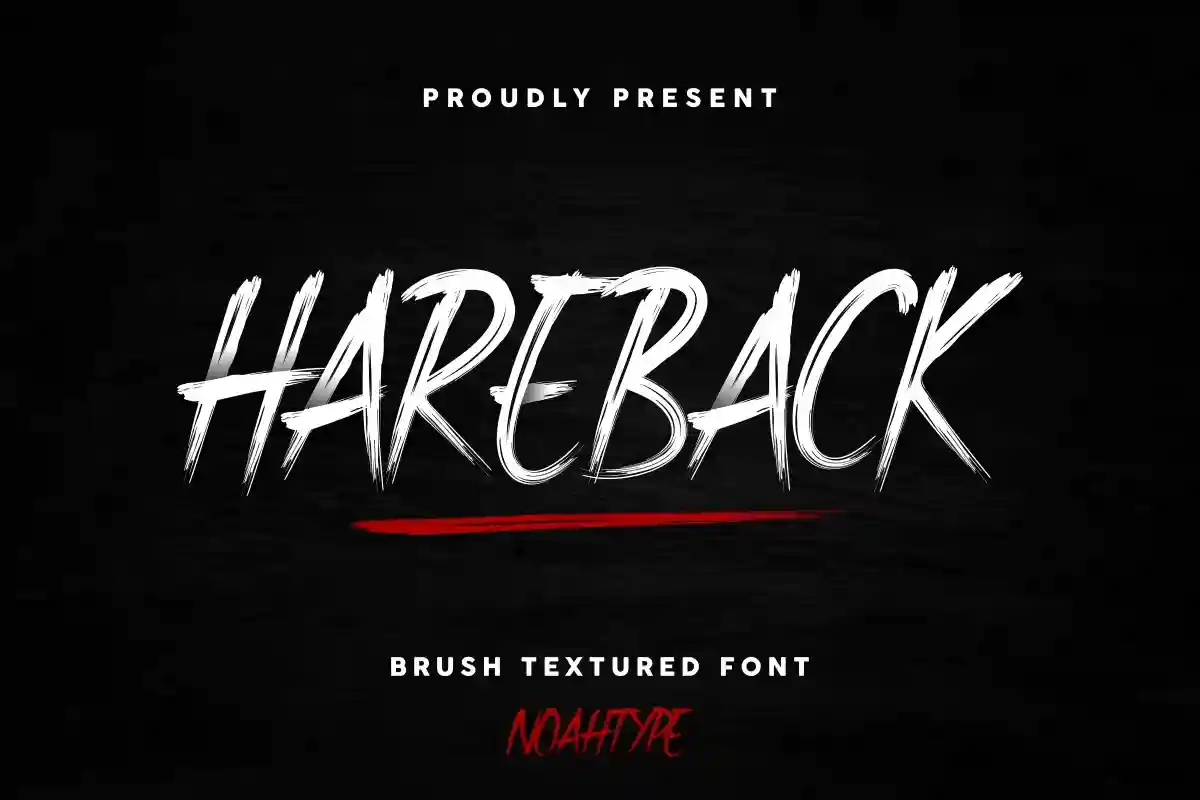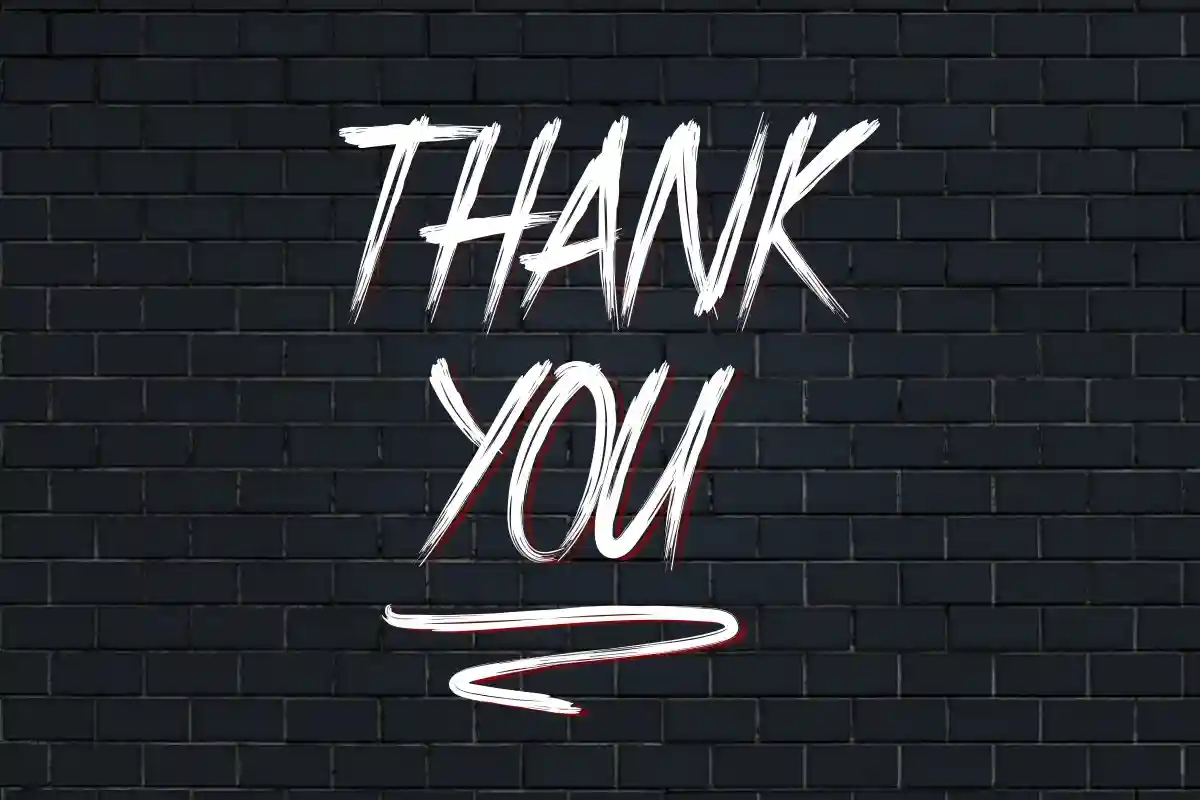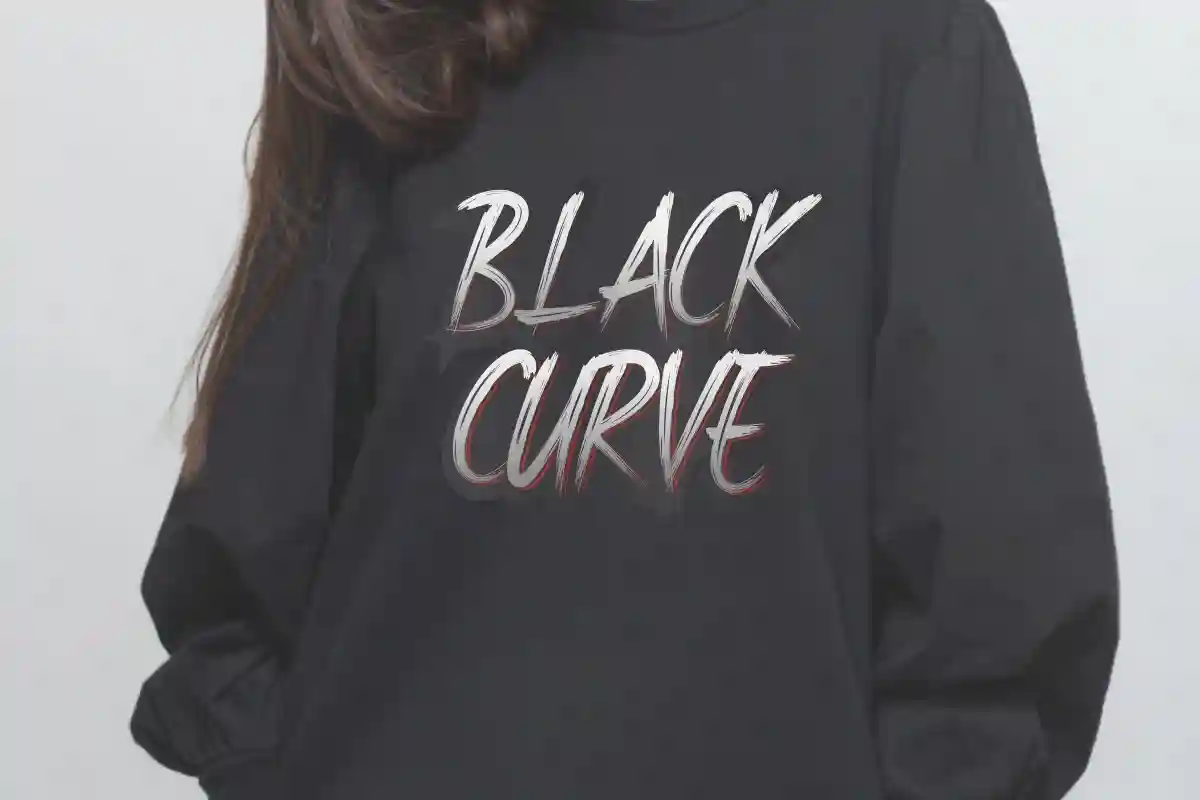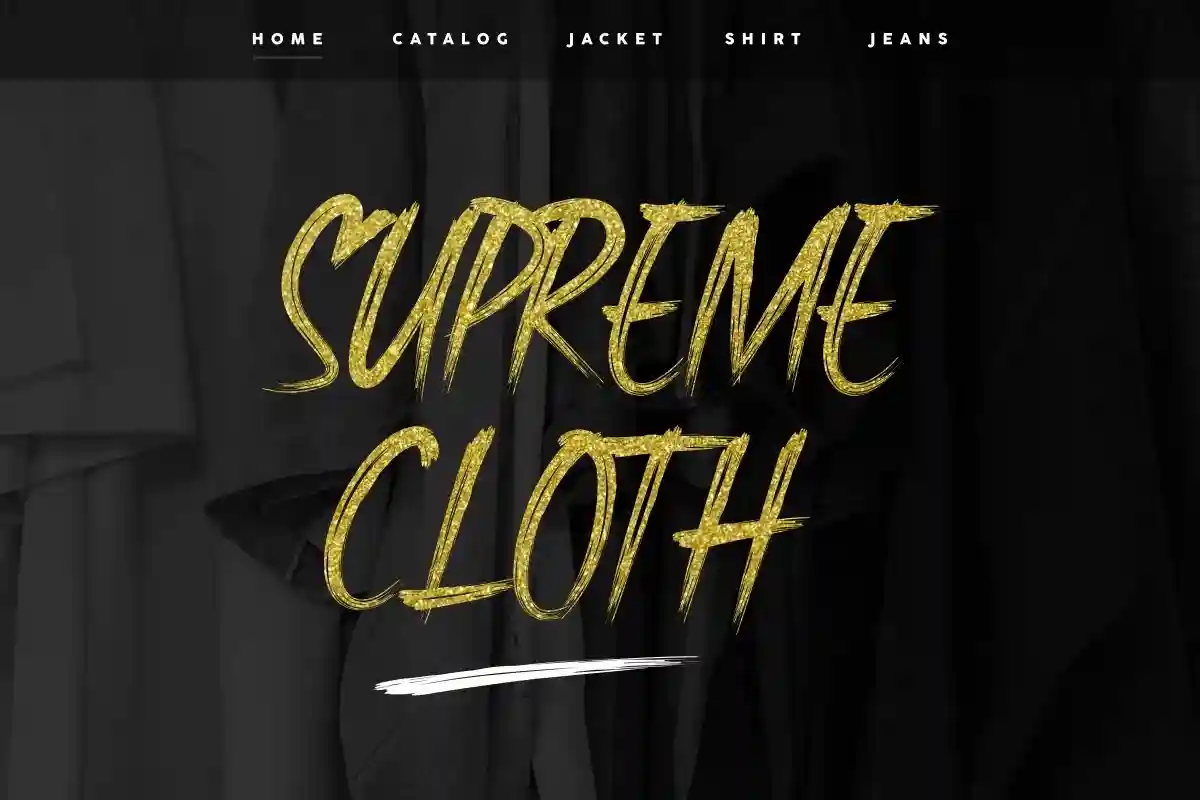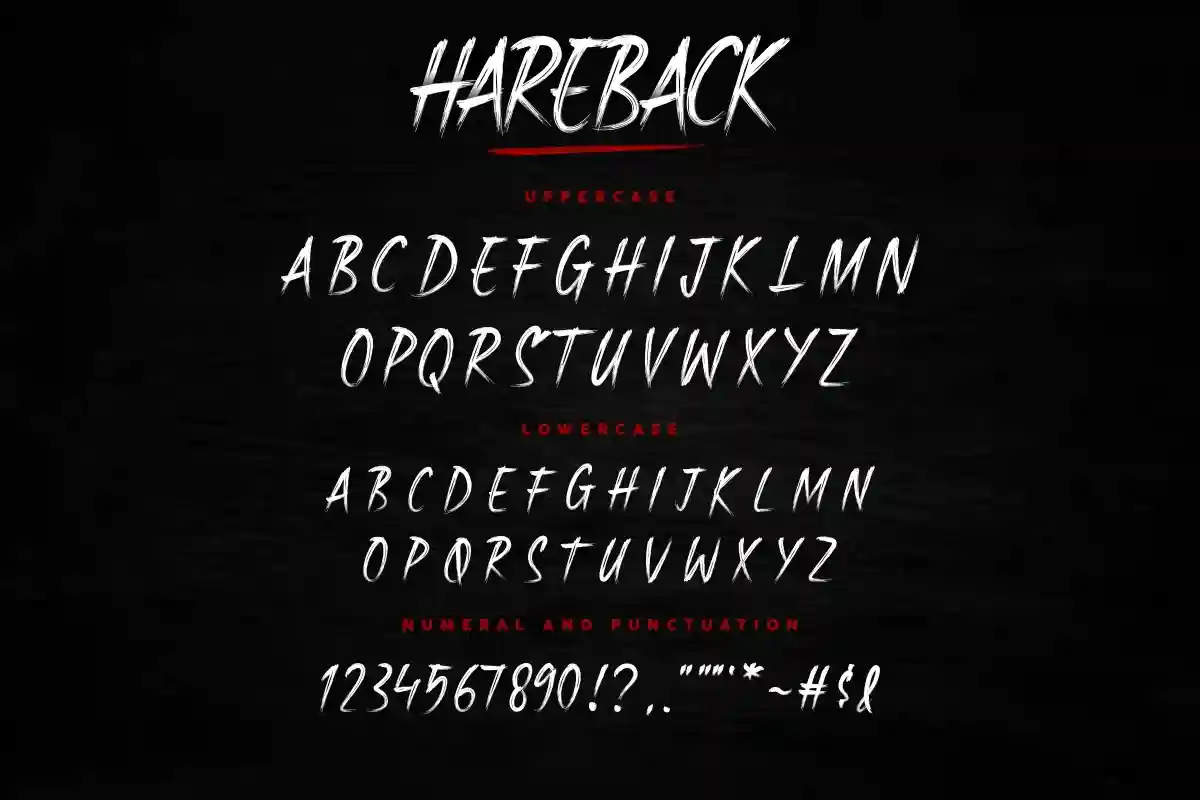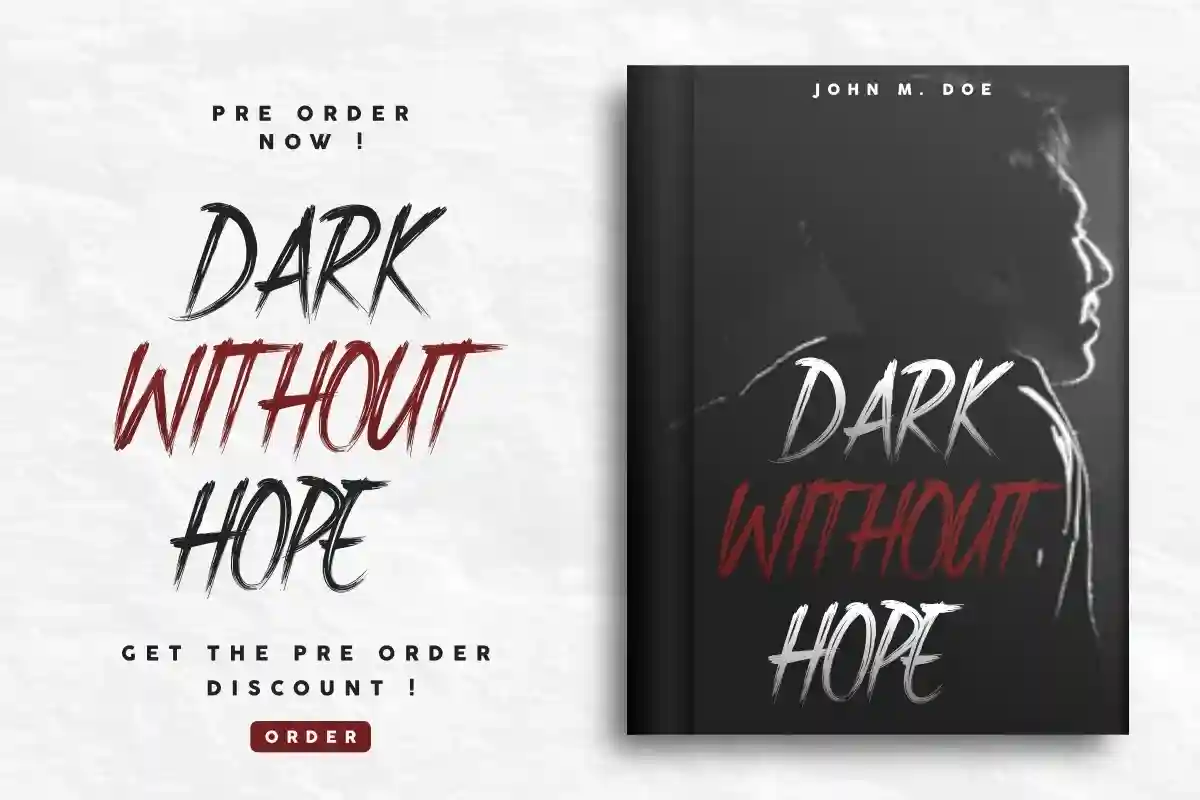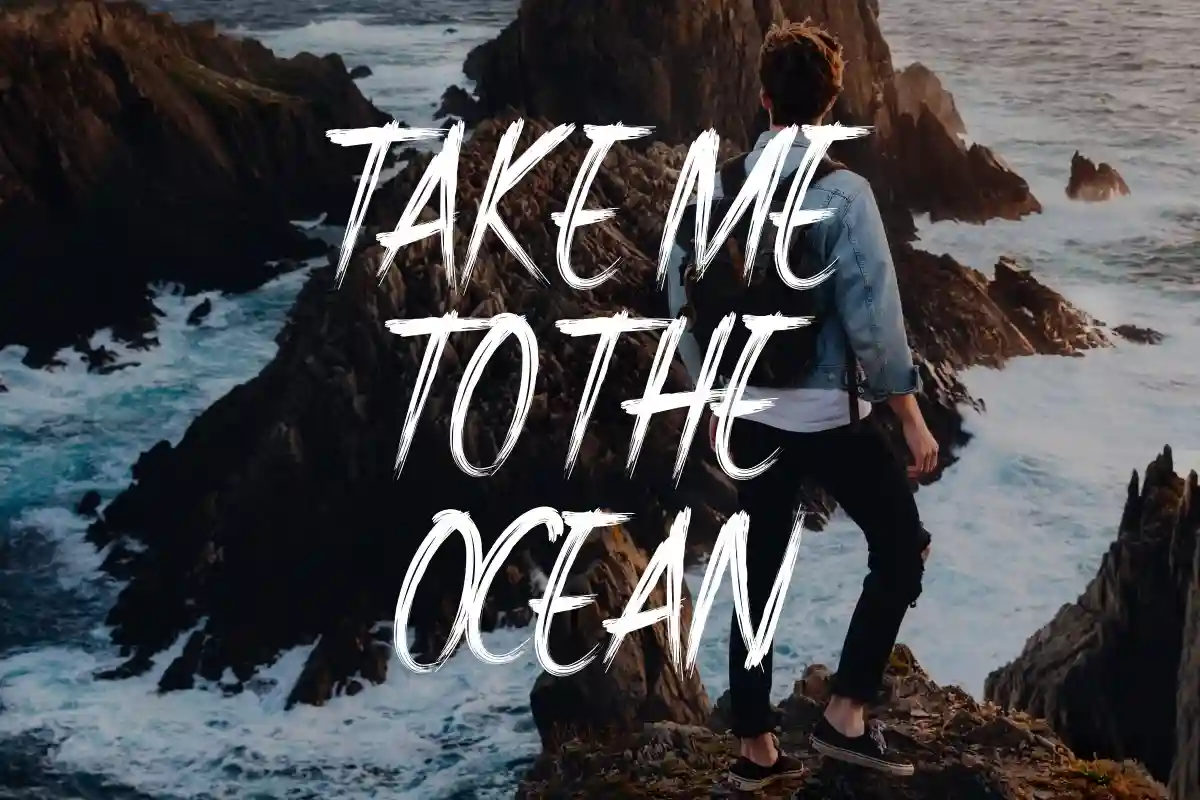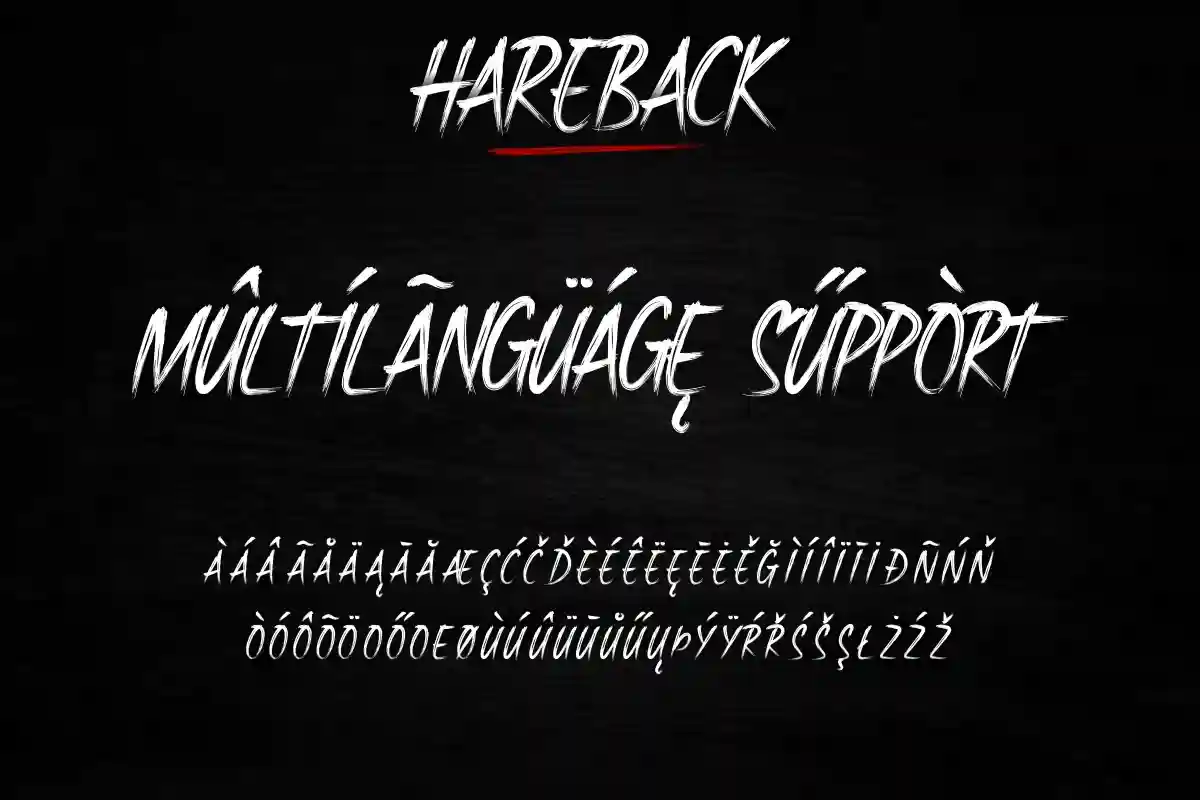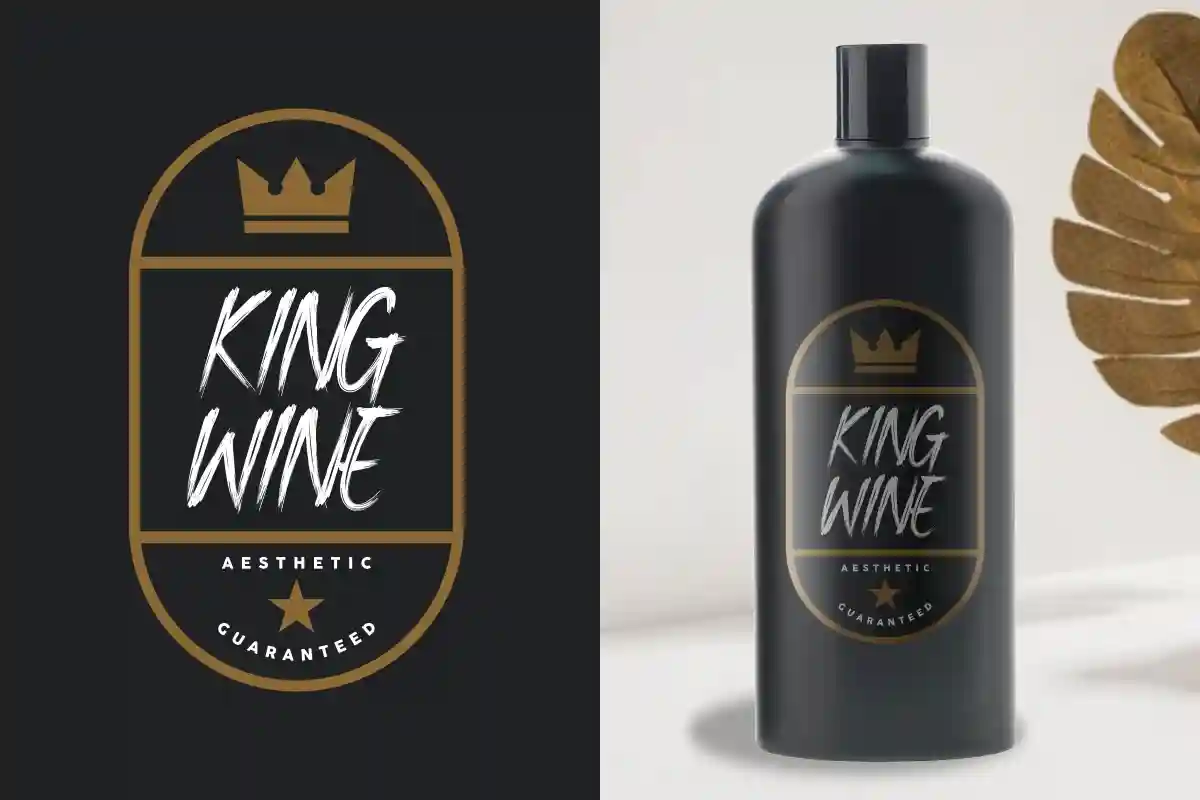
Hareback Font is a grunge strong brush font with a horror, dark, mysterious, black, underground style and all caps characters. This font is crafted carefully in every its single scratch, created to look as close to a actual brush so that it can create the perfect display on each glyph. When we make this font, we really want to create a touch that is so free-flowing that it gives a REAL impression on its use later. This awesome script is for anyone who need unique textured style for their designs.
Hareback Font includes full set of Uppercase and Lowercase Basic Characters, Numerals and Punctuation. Also it contains ligatures and a lot of stylistic alternates characters to perfectly make awesome look that add more aesthetic fonts to perfect your extraordinary project.
This font is perfect for many projects, TITLE, logos, branding design, promotions, quotes, fashion apparel, social media, poster and more!